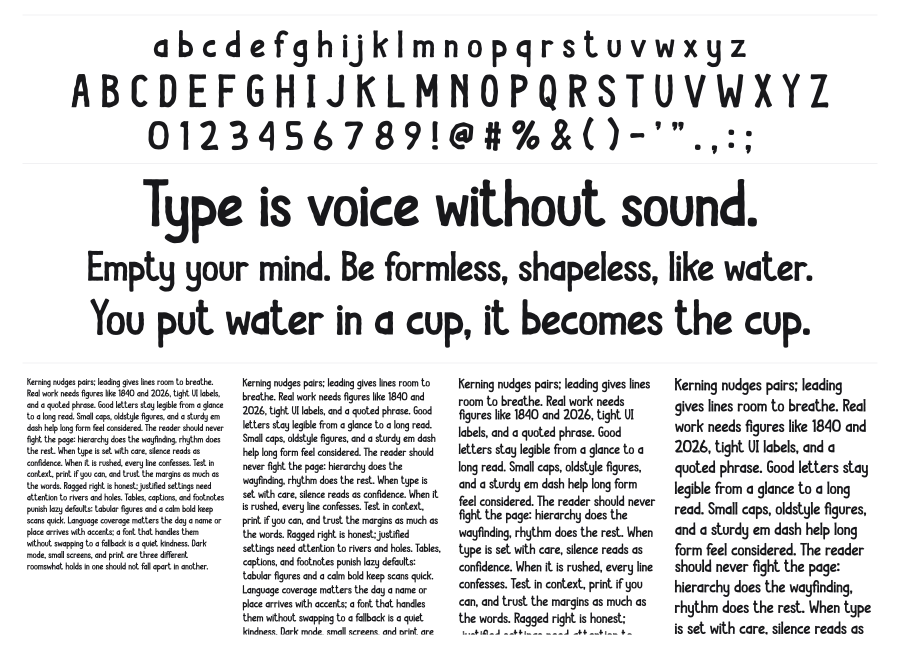
Wizam
by Tokokoo Studio · Website
Wizam is a bold, rounded display font with a hand-drawn cartoon personality. Thick strokes and softly irregular curves give it the kind of energetic, kid-friendly charm that works well on children's books, game titles, and playful branding. The roughness is subtle enough to read as intentional rather than sloppy.